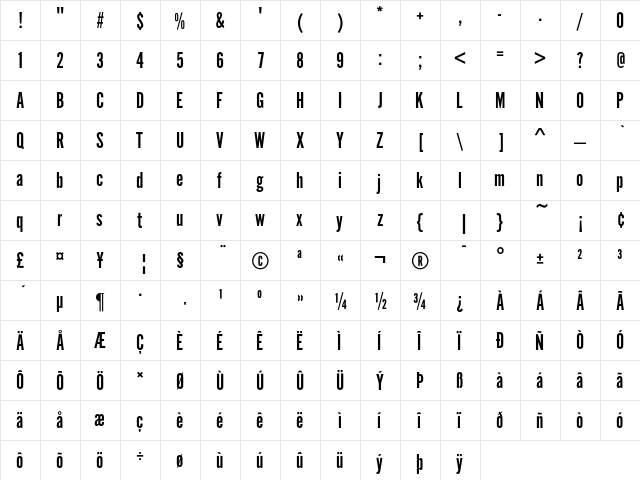
AlternateGothicEF NoOne
Design Context for AlternateGothicEF Typeface
AlternateGothicEF takes a clean, functional approach — its unadorned letterforms prioritise legibility and work reliably across screen and print environments.
Font Pairing: Works well alongside a characterful serif or display font that can carry the expressive load while AlternateGothicEF handles the functional copy.
Pro Tip: Pair AlternateGothicEF with a display or serif font for headlines — its neutral character makes it an excellent supporting player in complex typographic systems.